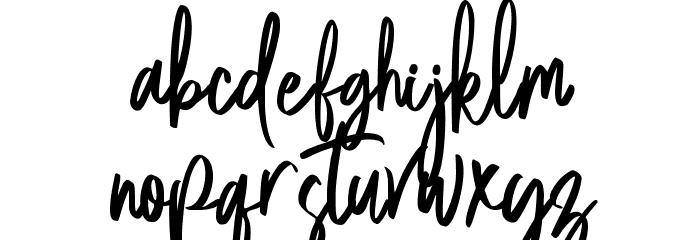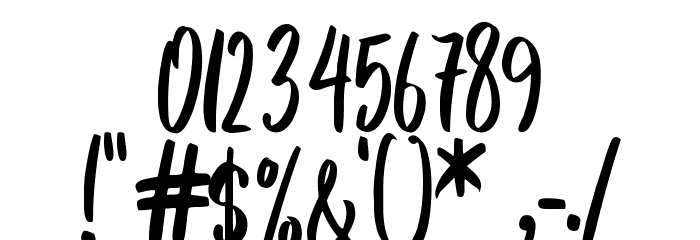
Acoustica South Font
This font features a dynamic and expressive handwritten style, characterized by its fluid and flowing letterforms. The uppercase letters exhibit a bold and confident appearance, with varying stroke widths that add a sense of movement and energy. The lowercase letters maintain a cohesive look, with smooth curves and a slightly slanted orientation, enhancing the casual and informal feel. The numerals are consistent with the overall style, offering a playful yet legible design. Special characters are creatively integrated, maintaining the font's artistic flair. This font is ideal for projects that require a personal touch, such as invitations, greeting cards, or branding materials.
A dynamic and expressive handwritten font with fluid, flowing letterforms.
- Proposed Projects: Ideal for invitations, greeting cards, branding materials, and creative projects requiring a personal touch.